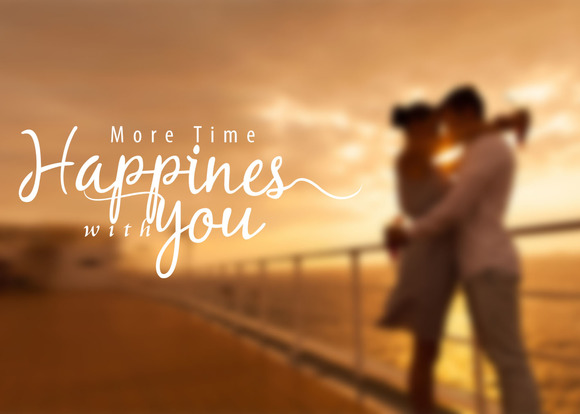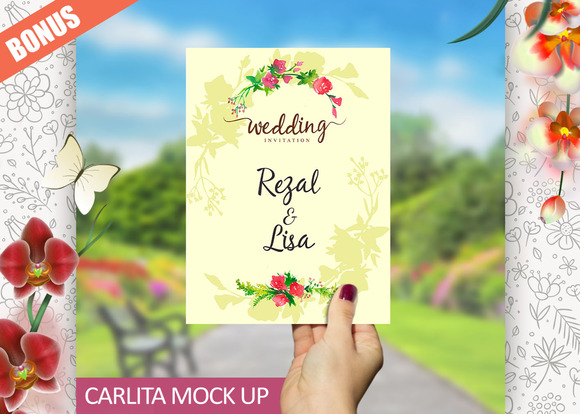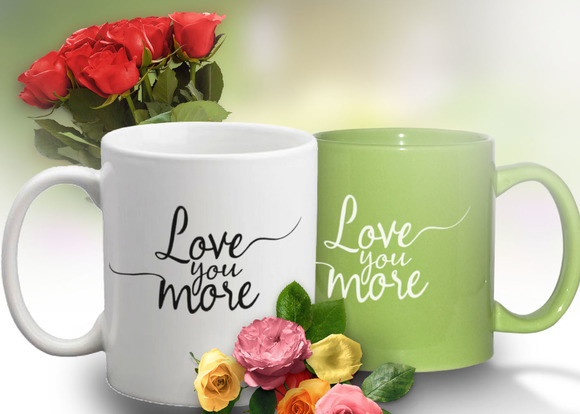
Carlita
Carlita Script Font
Hello friend! Introduce my new font handlettering Carlita Script typeface. Modern and unique typeface and very simple. Carlita Script typeface perfect using for wedding invitation, event, card, display, logo, greeting card, and other project design. Carlita Script font has extra alternative letter and bonus included in file download.